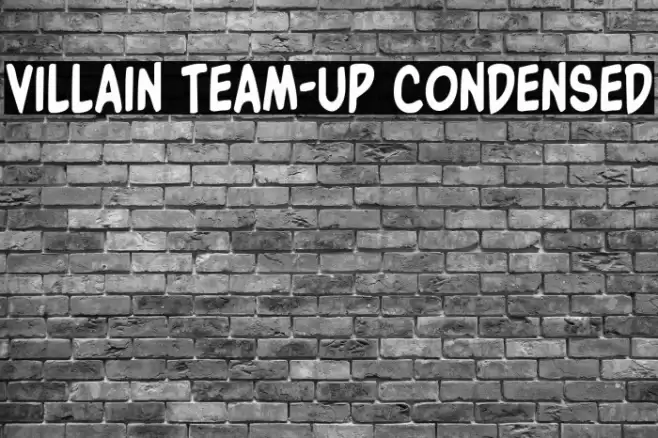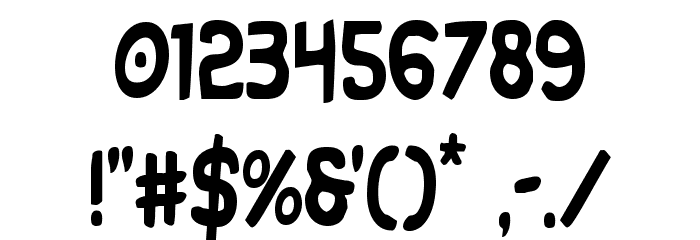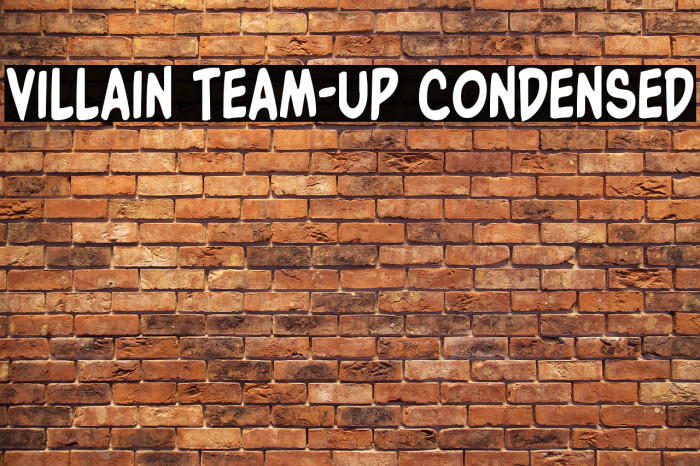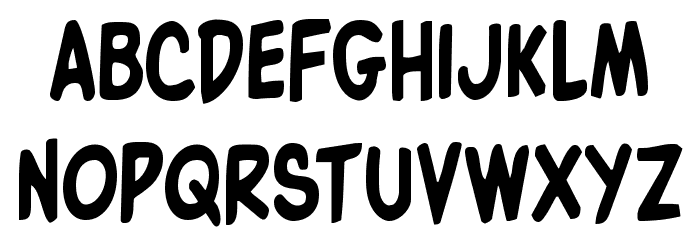
Villain Team-Up Condensed Font
Villain Team-Up Condensed Description
This font features a playful and bold style with a condensed appearance. The letters are rounded and slightly irregular, giving it a hand-drawn, comic-like feel. The uppercase and lowercase letters maintain a consistent thickness, contributing to a cohesive look. The numbers and special characters are designed to match the overall style, ensuring uniformity across all glyphs. This font's unique character makes it stand out, ideal for projects that require a fun and engaging visual element.
A playful, bold, and condensed font with a hand-drawn, comic-like style from Comic fonts.
- Proposed Projects: Ideal for comic books, children's books, playful branding, posters, and creative advertising.
- Overall Style: Playful, Comic